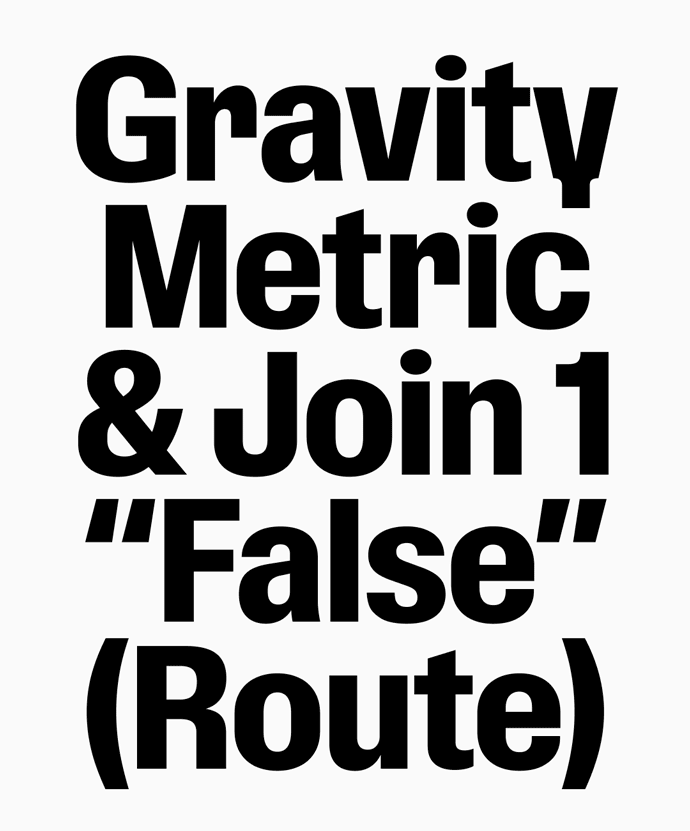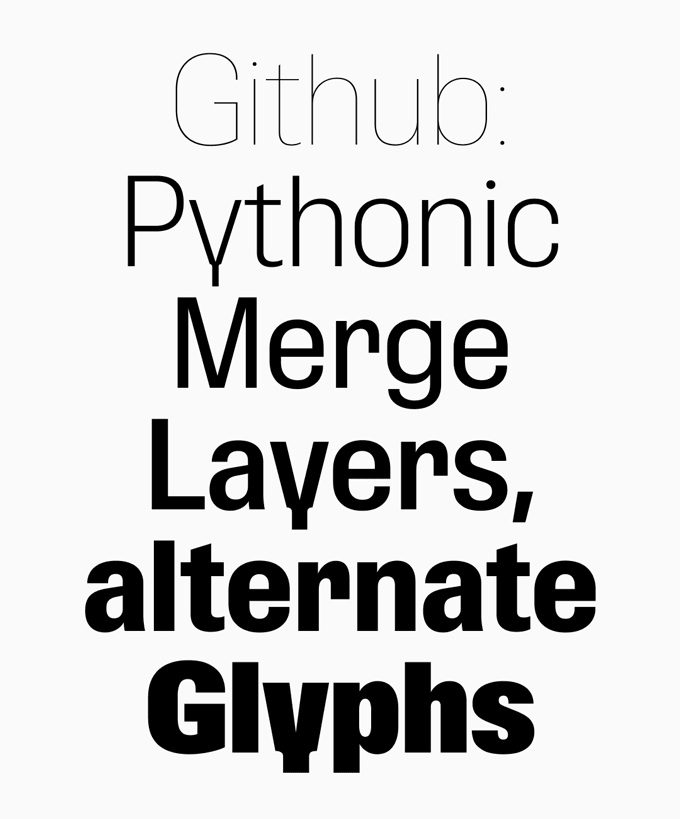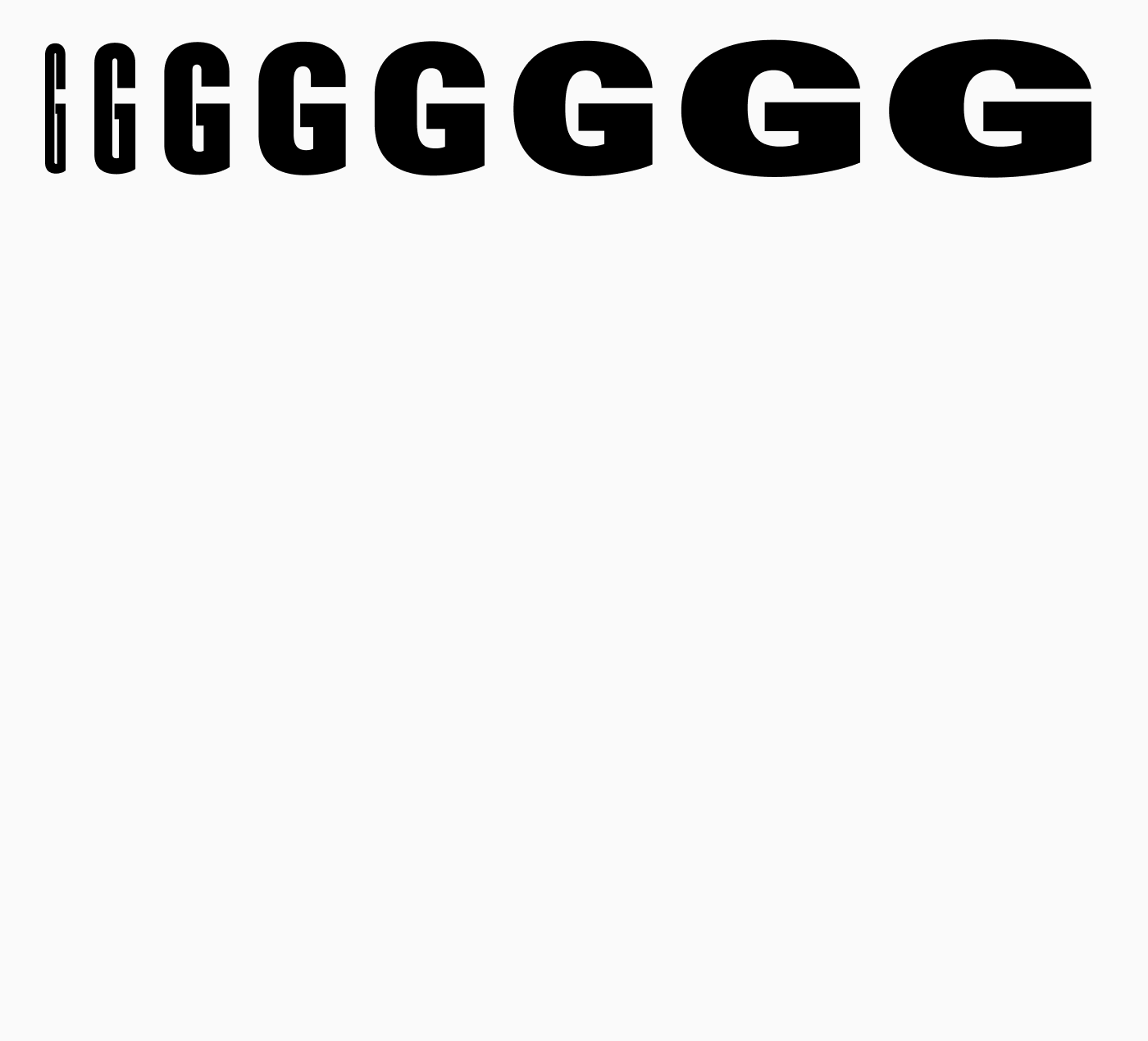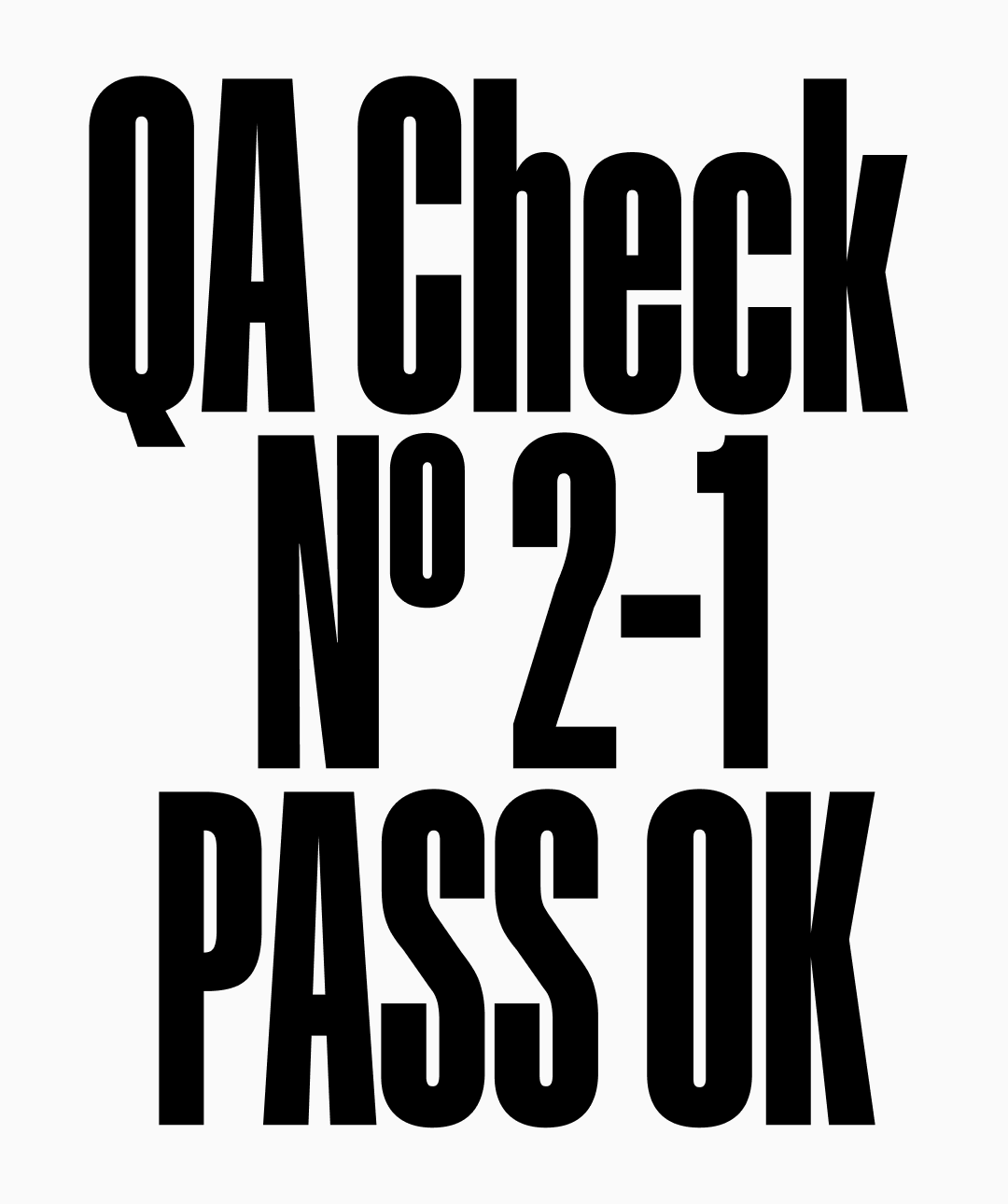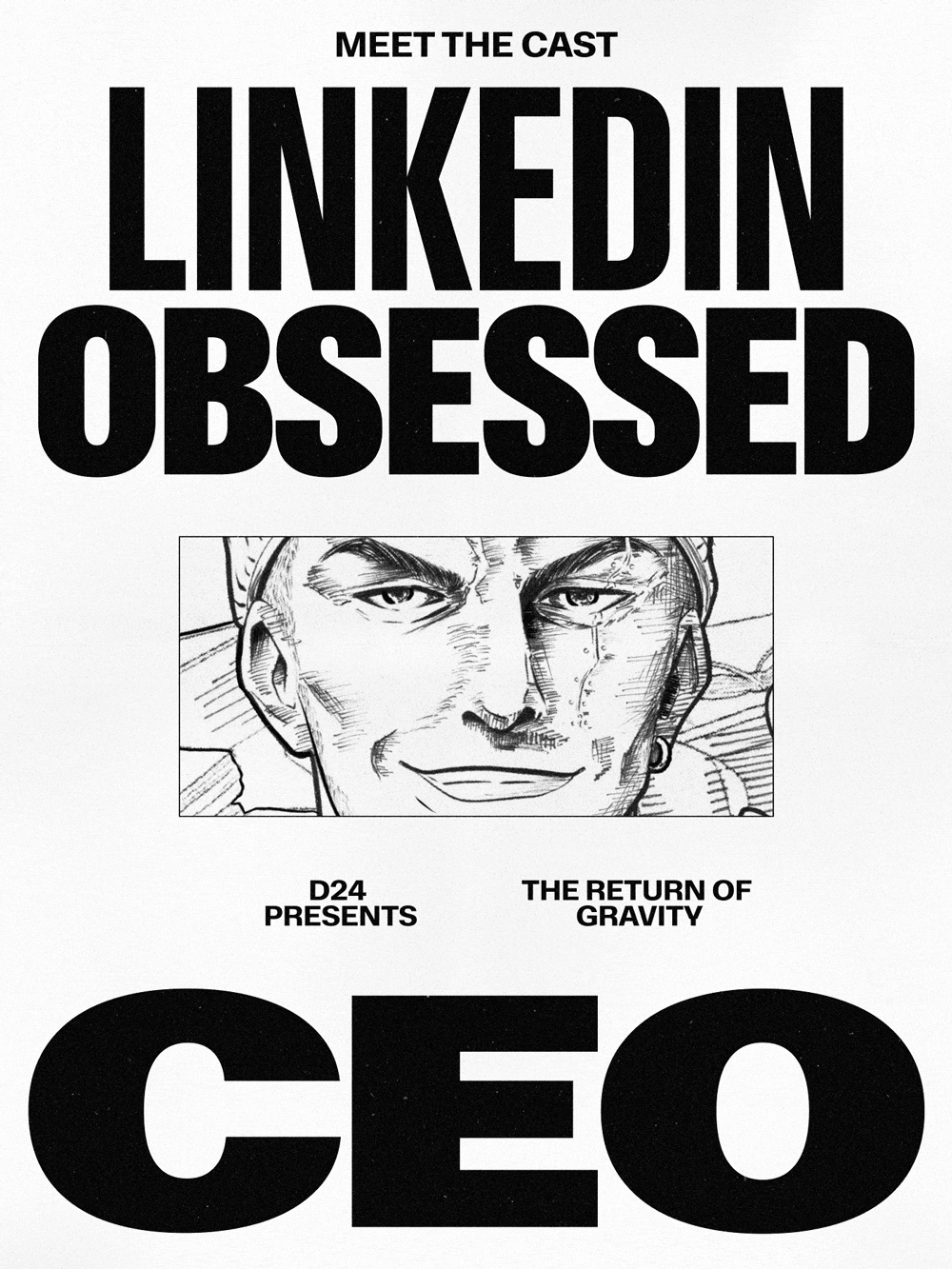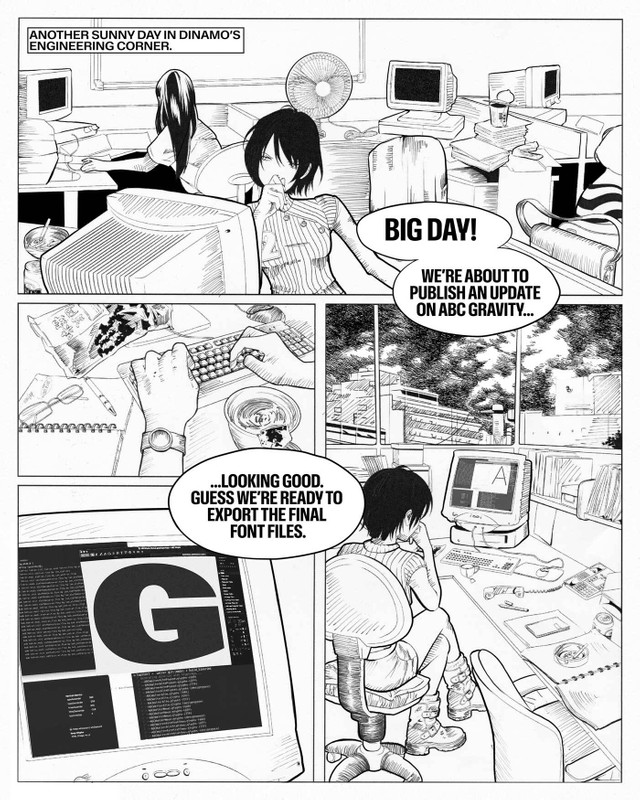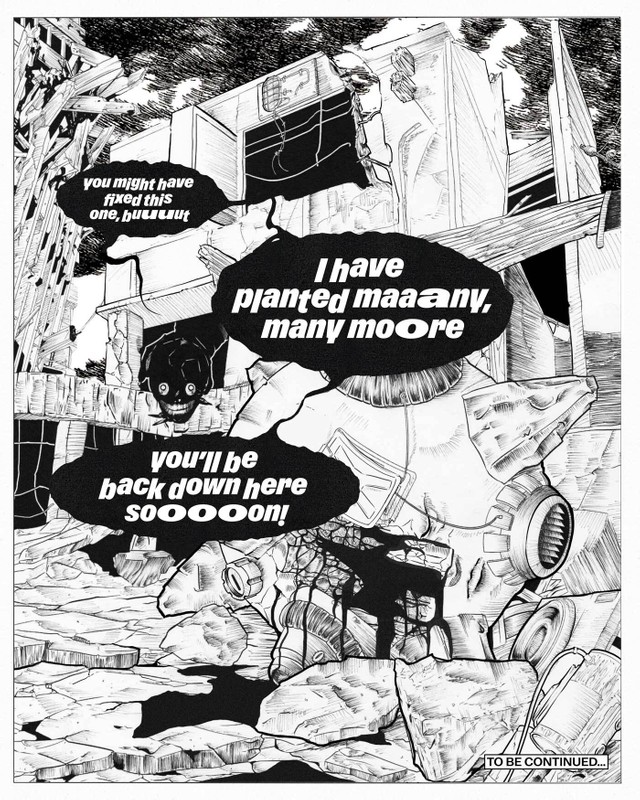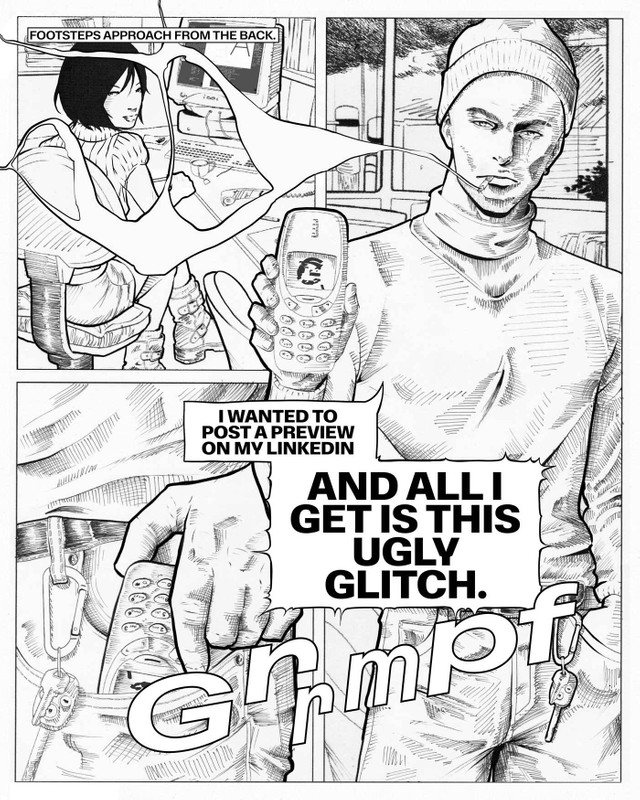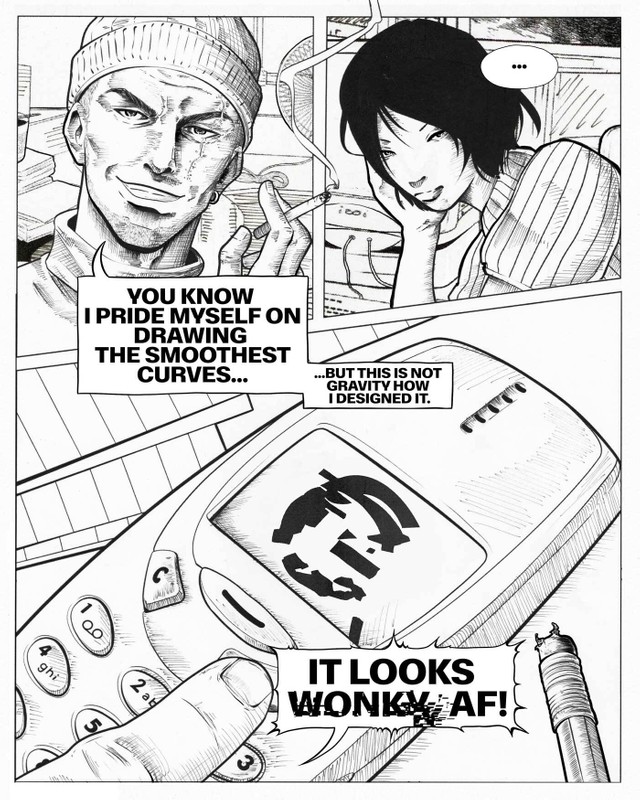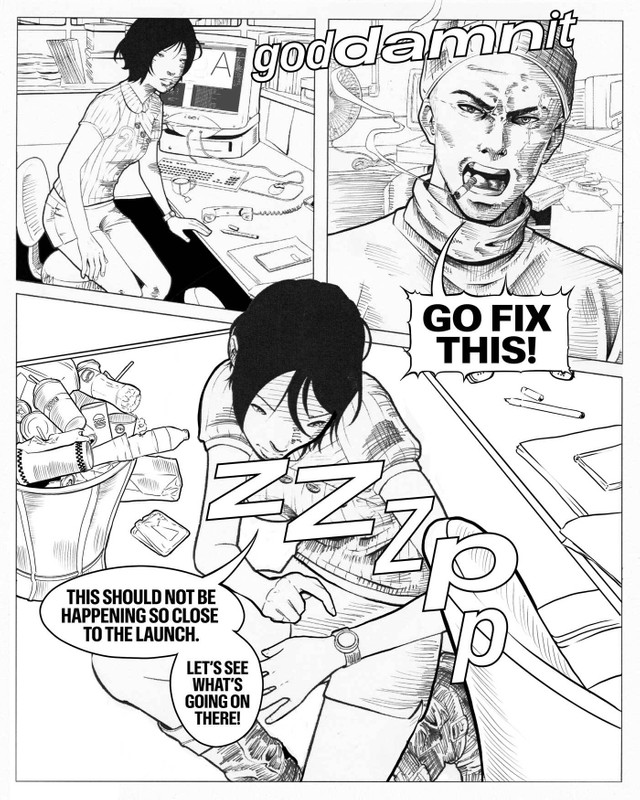
Gravity always had all the widths, and five years later it has all the weights, too. —
When the first version of Gravity came out in 2021, the world looked different, and we were interested in different things. Back then, the question we wanted to answer was: how wide can we go?
The typeface we set out to design was meant to cover “all the widths in this world,” and the challenge had to be completed in one single, obscenely heavy weight. Our usual mix of self-sabotage and play.
Gravity’s new campaign is a 10 part comic, entirely hand drawn. This is Panel 1. Scroll down for the rest. (:
People blessed with the task of designing movie titles, billboards, or responsive websites — anything that needs to take up very little space, cover enormous amounts of it, or, worse, both — became fast friends with this morally flexible typeface.
From print publications like GQ Korea and Dazed, cultural institutions like the Berlin Opera, and athletic giants like the NBA and Nike, to (finally) the Kardashians: Gravity became local and global news.
But times have changed, and so have our aspirations.
Gravity Today
Today, we’re returning with a massive update that we started working on right after the release of the first version. Like everyone else, we had become obsessed with weight.
How light could we go?
Gravity was put on a drastic diet and emerged with a full range of weights. Having opted for the non-Ozempic, slow, sustainable road to body recomp, the process took around two years and yielded long-term results: six manually calibrated weights for each width.
Everything previously known as “Gravity” is now “Gravity Ultra.” And sitting below, we have five new weights: Hairline, Regular, Medium, Bold, and Black.
The Return of Gravity
To celebrate this release, we want to shed light on what’s going on in the engine room of a type foundry. Long after the type designers have left the office to indulge in a round of indoor padel, the lights in the engineering corner are still on (flickering).
D24 is an independent entertainment company that’s behind some of the biggest box office blockbuster font releases.
Endless hours are spent fixing curves, re-placing components, removing bugs, re-writing feature code… tedious, mysterious tasks that in sum make sure everything works perfectly in terms of the Font-as-a-Software. The battle of man vs. machine never stops.
Chapter one: Release Day
It’s crunch time! The closer to release day, the more tense things become between the people involved. Personal drama is not the exception, it’s the rule!!
So what are these font-misfits up to on release day of Gravity 2.0? Please see for yourself...
1.5 years of Sharpening pencils
To pay homage to the diligent caretaking of font engineering, the entire campaign, too, was drawn by hand by Dinamo’s own Melanie Schmidt. As usual, she showed off her incredible craft — not a single AI agent was involved.
In her own words: “For the font engineer, I immediately thought of Heather Mason from Silent Hill 3 — effortless nonchalance until everything falls apart, and then she locks in. Narratively, I wanted a small twist, inspired by games like Undertale. Granted, the reveal isn’t exactly earth-shattering, but every good story deserves at least one ‘????’ moment. Visually, the illustrations owe a lot to Takeshi Obata of Death Note, whose obsessive precision permanently altered my brain chemistry — he taught me that something can feel finished and still deserve another pass. So every line was refined digitally before I switched to analogue for the shading, because apparently I enjoy making my life unnecessarily difficult.”
We can all agree that the lion’s share of credits shall go to Melanie. What’s left of the credit pie is split between Johannes and Kristin, who took care of the script, and our friend and serial collaborator Lucas Hesse, who turned our drawings and engine room into motion graphics. The little bit of graphic design you can find sprinkled in here was done by Lucas and Johannes.
Gravity Basics
Aesthetically, Gravity shares a community garden with Compacta, Information, and Impact, the famous titling bad boys of the ’60s and ’70s. But we drew our design in a much softer way, a touch more open and friendly. We pushed the moment where the curves have to become straighter and more rigid — because of the density of the width — as far down the width axis as possible. Once you’re past “Condensed,” things get warmer instantly.
Alternates & Features
We filled the character set up to the brim with stylistic variations. The alternate G and R, the “square punctuation,” and the “sharp character” group are my favorites — each of them, when applied, changes the flavor of the typeface quite visibly. (And you can create and download your own custom version using our free Font Customizer tool.)
TL;DR
Gravity always had all the widths, and five years later it has all the weights, too. Super compressed to super wide, super light to super heavy.